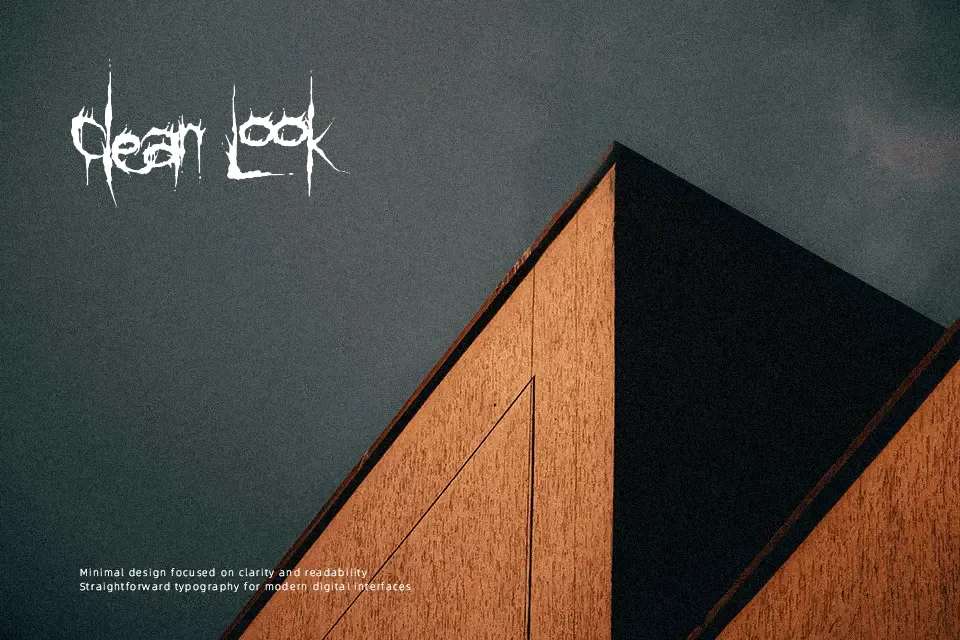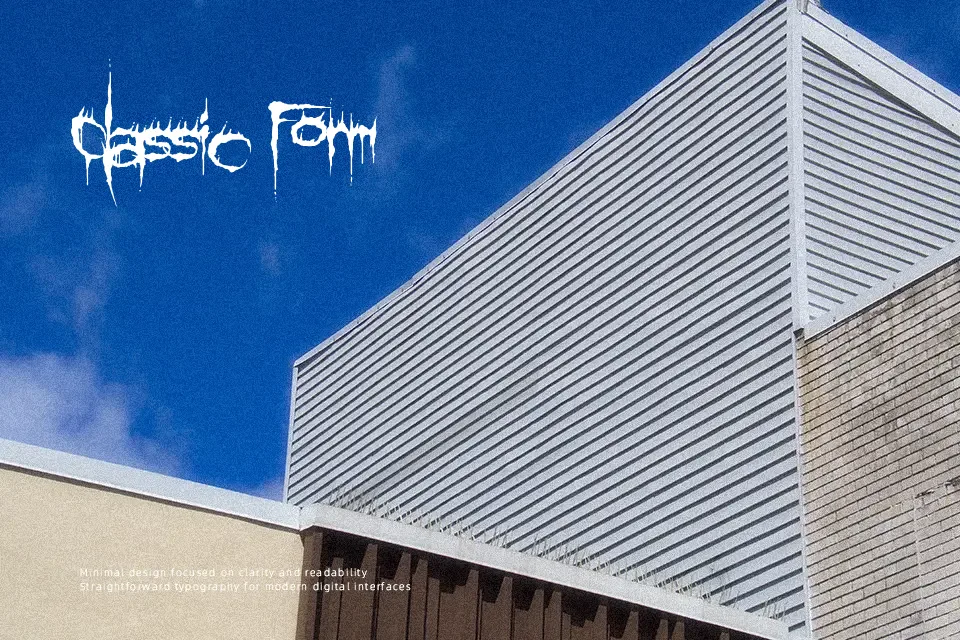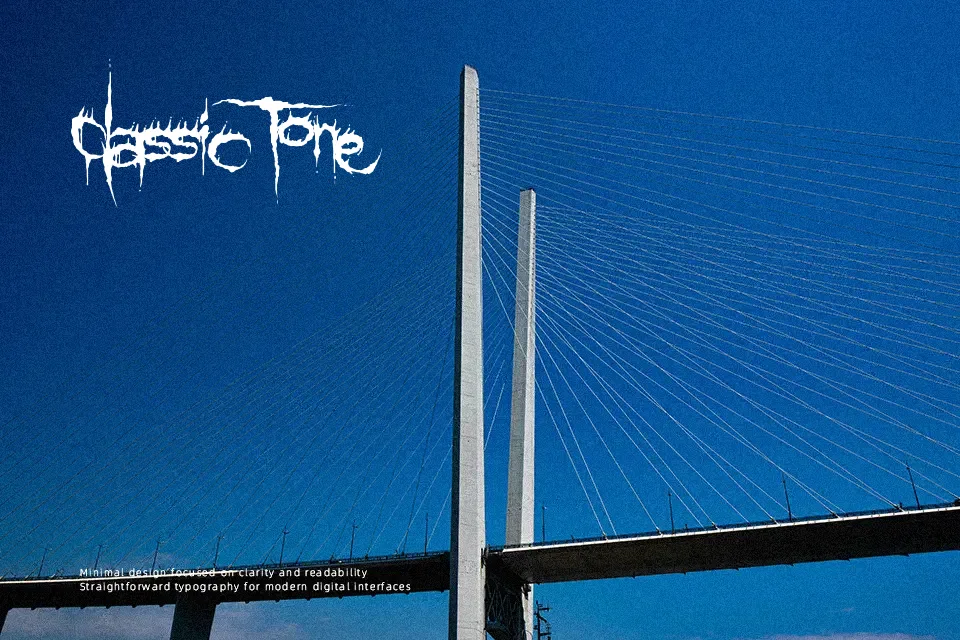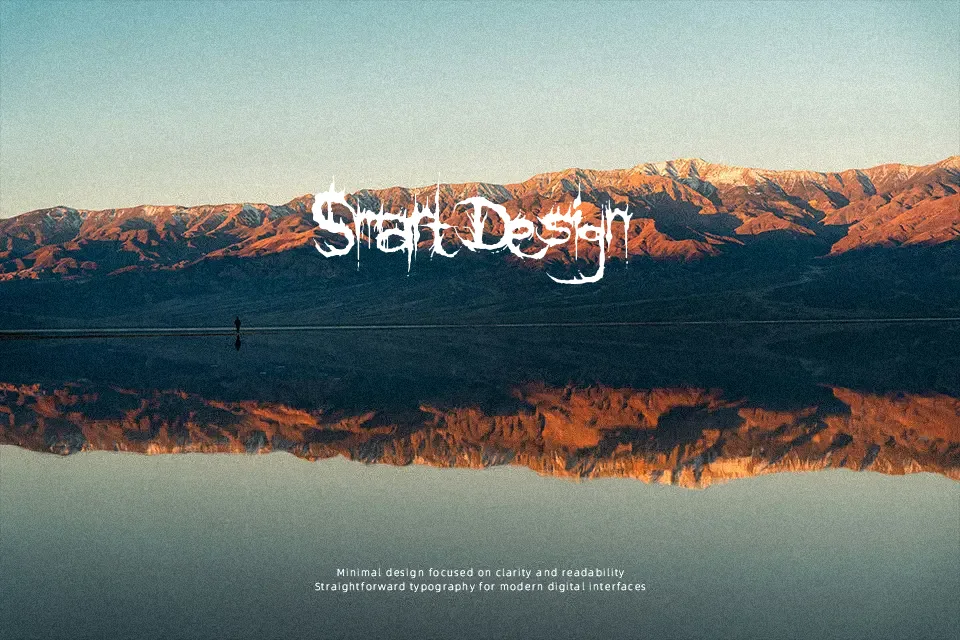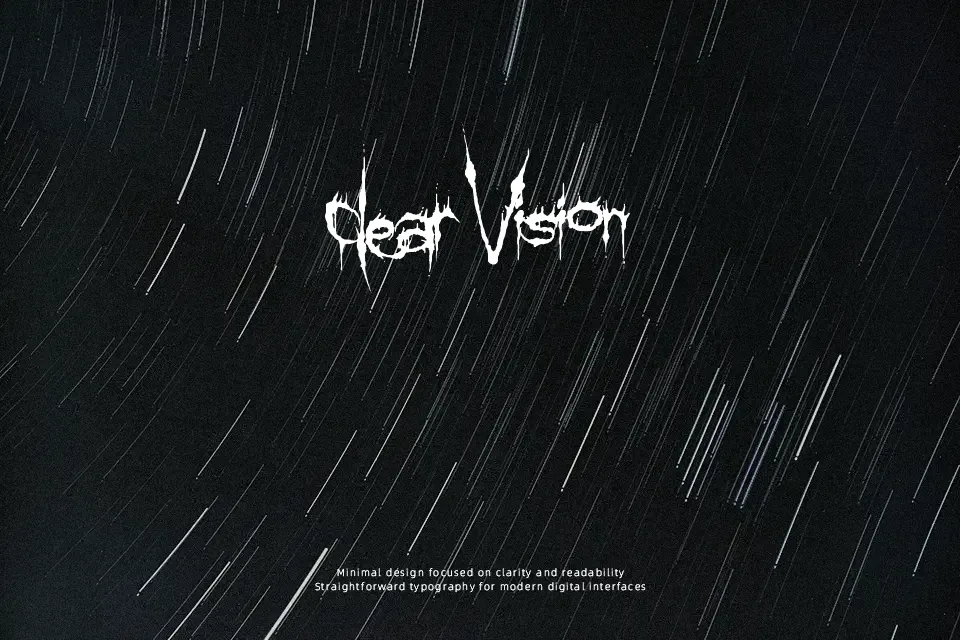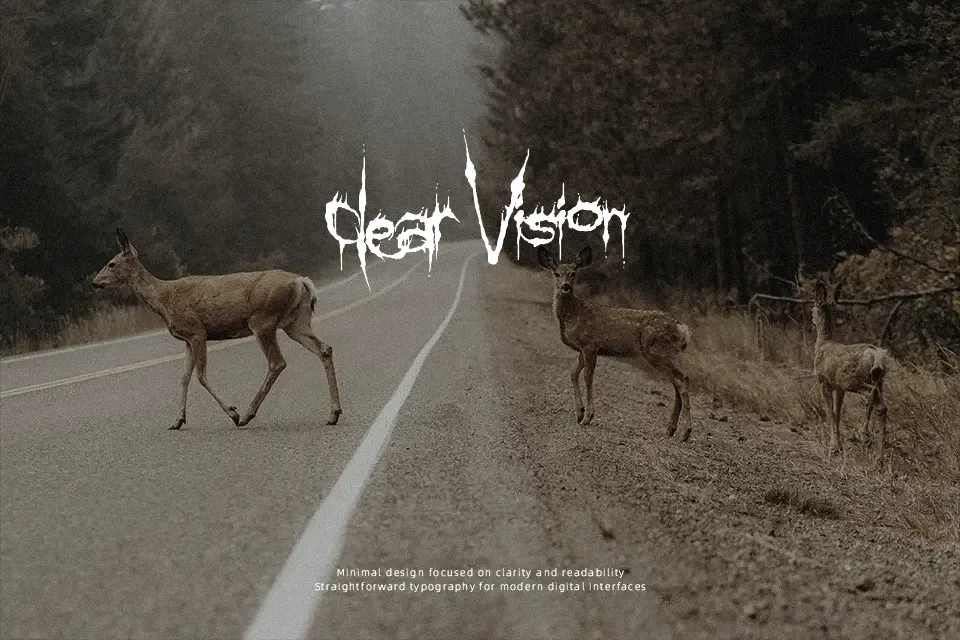
Klinge Death Brush Font
Designed by Klinge Art
Sharp, erratic brush strokes give Klinge Death Brush a tense, almost violent energy, with jagged edges and irregular spacing that feel hand-painted rather than controlled. The letterforms lean toward a gritty display style, making them stand out in dark or high-contrast compositions. It works convincingly on metal band artwork, horror-themed posters, or streaming overlays where mood matters more than readability. However, the uneven baseline and heavy texture quickly become tiring in longer text, so it’s best used sparingly. It performs well when scaled large, but loses clarity at smaller sizes.
album cover titles
horror movie posters
gaming stream graphics
band or event logos
corporate presentations
small UI labels